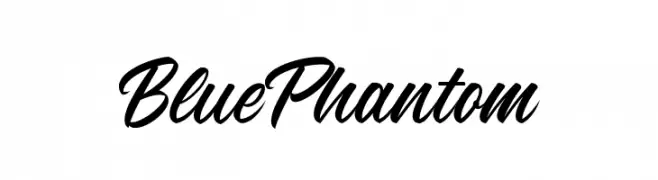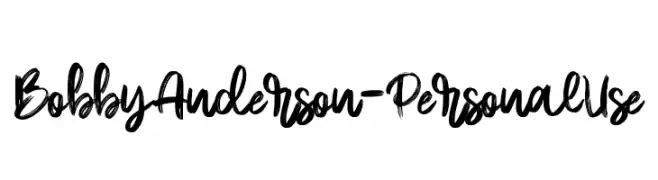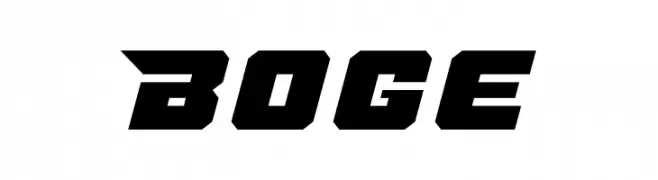
A bold, modern sans-serif font with geometric influences and strong visual impact.
A modern, italicized font with clean, geometric lines and consistent stroke widths.
A modern serif font with clean lines and balanced forms.
A graceful script font with elegant loops and swirls, perfect for romantic and luxurious designs.
An elegant, flowing script font with a sophisticated italic style.
A bold, handwritten font with a playful and dynamic style.
A bold, jagged font with sharp, dynamic strokes for an edgy appearance.
A bold, sketch-style font with a hand-drawn, textured appearance.
A flowing, elegant cursive font with smooth, continuous strokes.
A bold, geometric font with a modern and industrial aesthetic.
A bold, geometric outline font with a modern architectural style.
A geometric, thin-stroked font with a modern and structured design.
A bold, playful font with a vintage-modern style, ideal for creative projects.
A bold, modern script font with elegant, flowing strokes.
A playful, artistic font with bold, irregular strokes and geometric flair.
A bold, distressed font with a rugged, vintage look.
A lively, expressive script font with fluid, dynamic strokes and a personal touch.
A dynamic, cursive script font with elegant slants and lively contrast.
An elegant, flowing script font with delicate curves and a sophisticated style.
A flowing, elegant script font with high contrast and interconnected characters.
A playful, slanted font with rounded, smooth curves.
A flowing, elegant script font with connected strokes and a sophisticated appearance.
A playful, hand-drawn font with a whimsical and friendly style.
A whimsical font with playful curls and loops, perfect for creative projects.
A playful, hand-drawn font with quirky, uneven uppercase letters and smooth, rounded lowercase letters.
A playful, handwritten font with smooth, rounded edges and a casual style.
A bold, brush-stroke font with an energetic and artistic style.
A bold, brush-style font with a dynamic, hand-painted appearance.
A bold, energetic brush script font with dynamic, expressive strokes.
A modern, geometric sans-serif font with uniform stroke widths and a sleek design.
An elegant and bold decorative font with artistic flourishes.
An elegant, Art Deco-inspired font with geometric shapes and subtle curves.
A bold, playful script font with flowing cursive letters.
A playful, handwritten font with tall, narrow letters and consistent stroke width.
An elegant, flowing script font with smooth, cursive strokes.